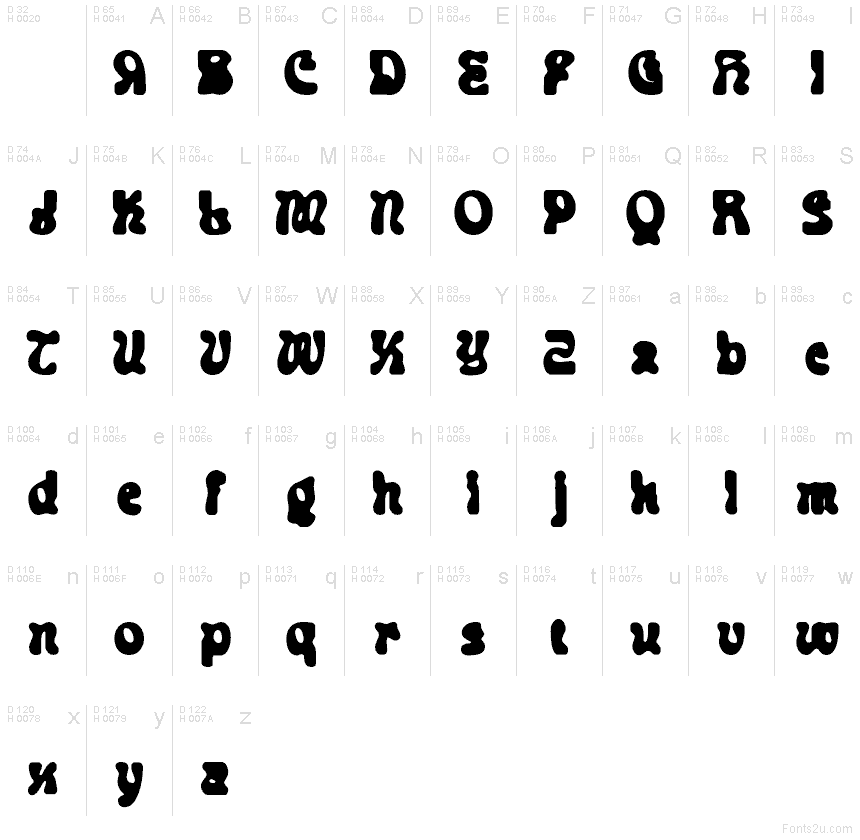
CSSmileyDrawn-Regular Demo
CS Smiley Drawn font by Craft Supply Co. is a free bold groovy hand-drawn font. Built within the CS Smiley family, it leans into blobby, inky shapes with a playful wobble and soft, puddled terminals. The strokes feel plush and buoyant, with chunky rhythm and loose spacing that makes headlines pop without looking stiff or overworked.
Using CS Smiley Drawn, your work shines on festival posters, kids’ packaging, ice cream menus, retro event flyers, sticker sheets, and upbeat social graphics. This free font’s gummy curves read big and friendly, helping brand moments feel warm and human. For balance, pair it with a crisp condensed sans for small text, or keep it huge and let the bubbly forms do the talking.
CS Smiley Drawn Demo